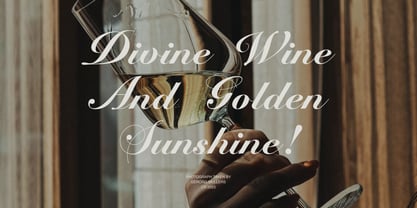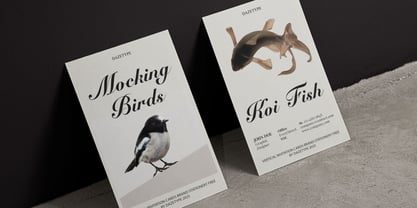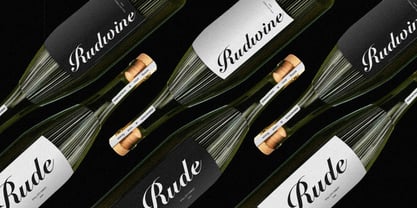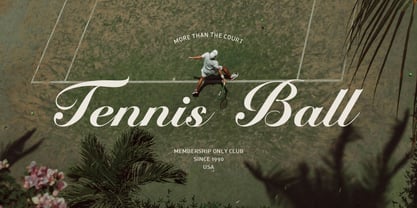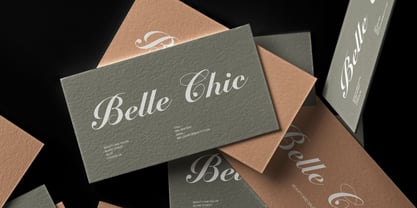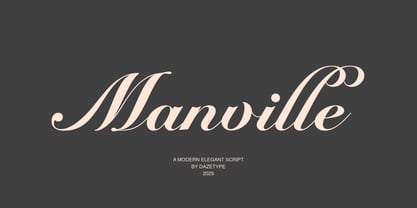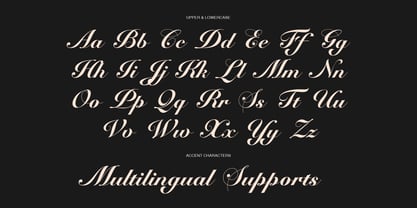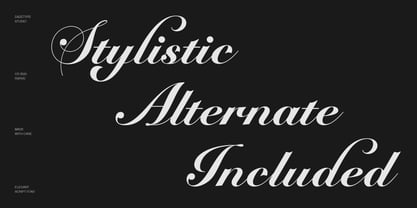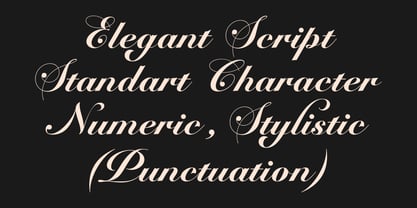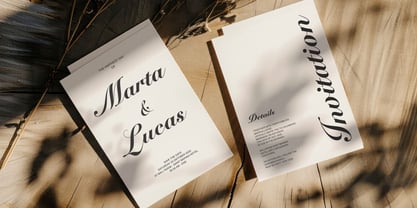
Manville
by Daze Type Std
The Manville Font Family was designed by and published by Daze Type Std. Manville contains 1 styles. More about this family
Manville – Modern Elegant Script Graceful calligraphy meets modern luxury — perfect for fashion, wedding, and high-end branding. Manville is a modern elegant script font designed by Dazetype Studio, blending the beauty of classic calligraphy with a refined contemporary touch. Its flowing letterforms and graceful contrasts create a luxurious handwritten aesthetic, perfect for designers who seek sophistication and style. With every stroke carefully crafted, Manville brings timeless elegance to modern branding, making it ideal for high-end projects that demand a polished and exclusive look. This script font shines in luxury branding, wedding invitations, fashion editorials, perfume packaging, and logo design. Its delicate curves and smooth rhythm evoke a sense of confidence and charm, balancing softness with structure. Featuring a wide range of alternates and ligatures, Manville allows creative flexibility while maintaining harmony in every composition. Whether used for a boutique signature, a high-fashion campaign, or elegant stationery, Manville delivers refinement, artistry, and timeless beauty. Font Features • Uppercase & Lowercase • Alternates & Ligatures • Numerals & Punctuation • Multilingual Support (Western Europe) • PUA Encoded (Fully accessible without design software) • Smooth, elegant strokes for a luxurious handwritten feel